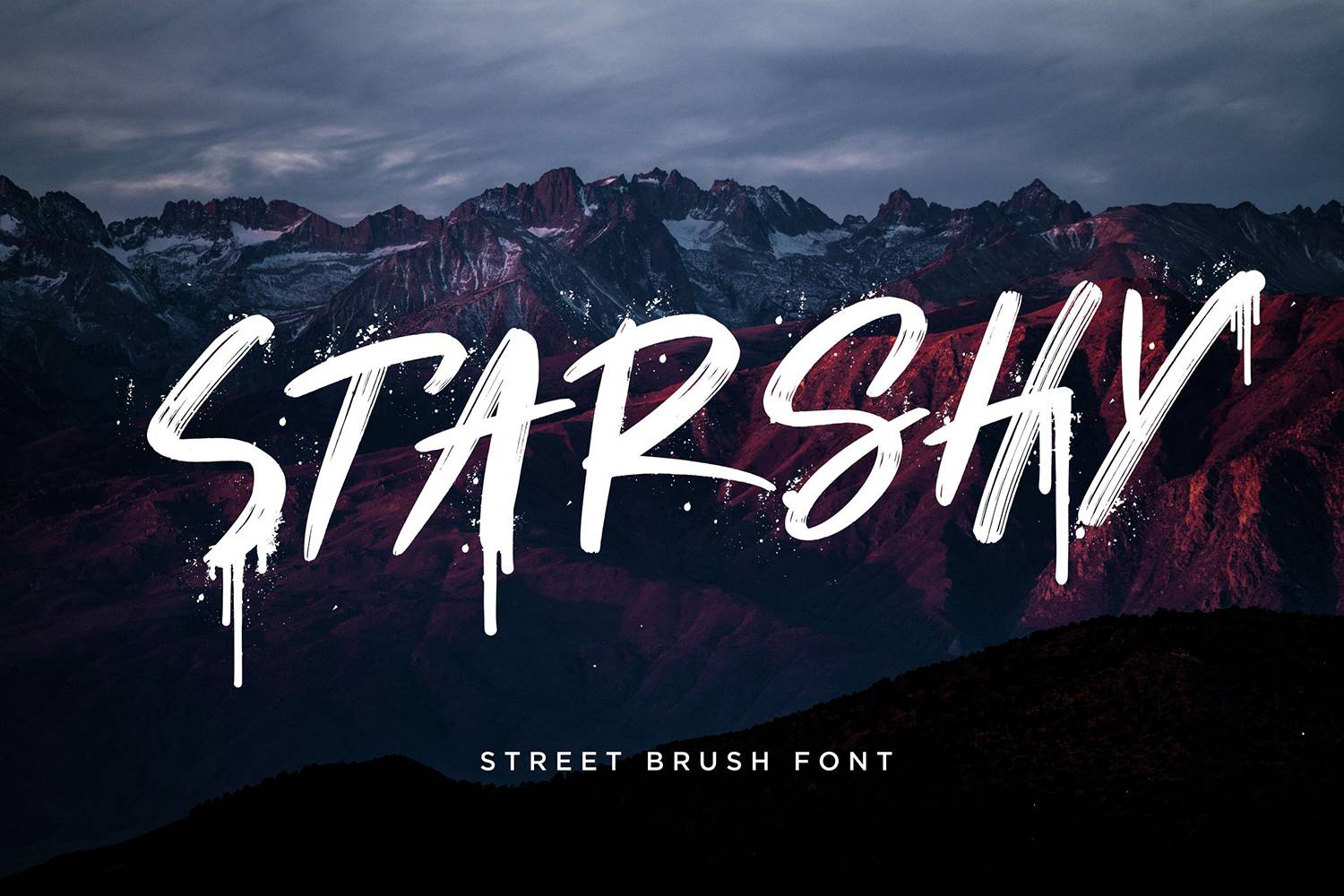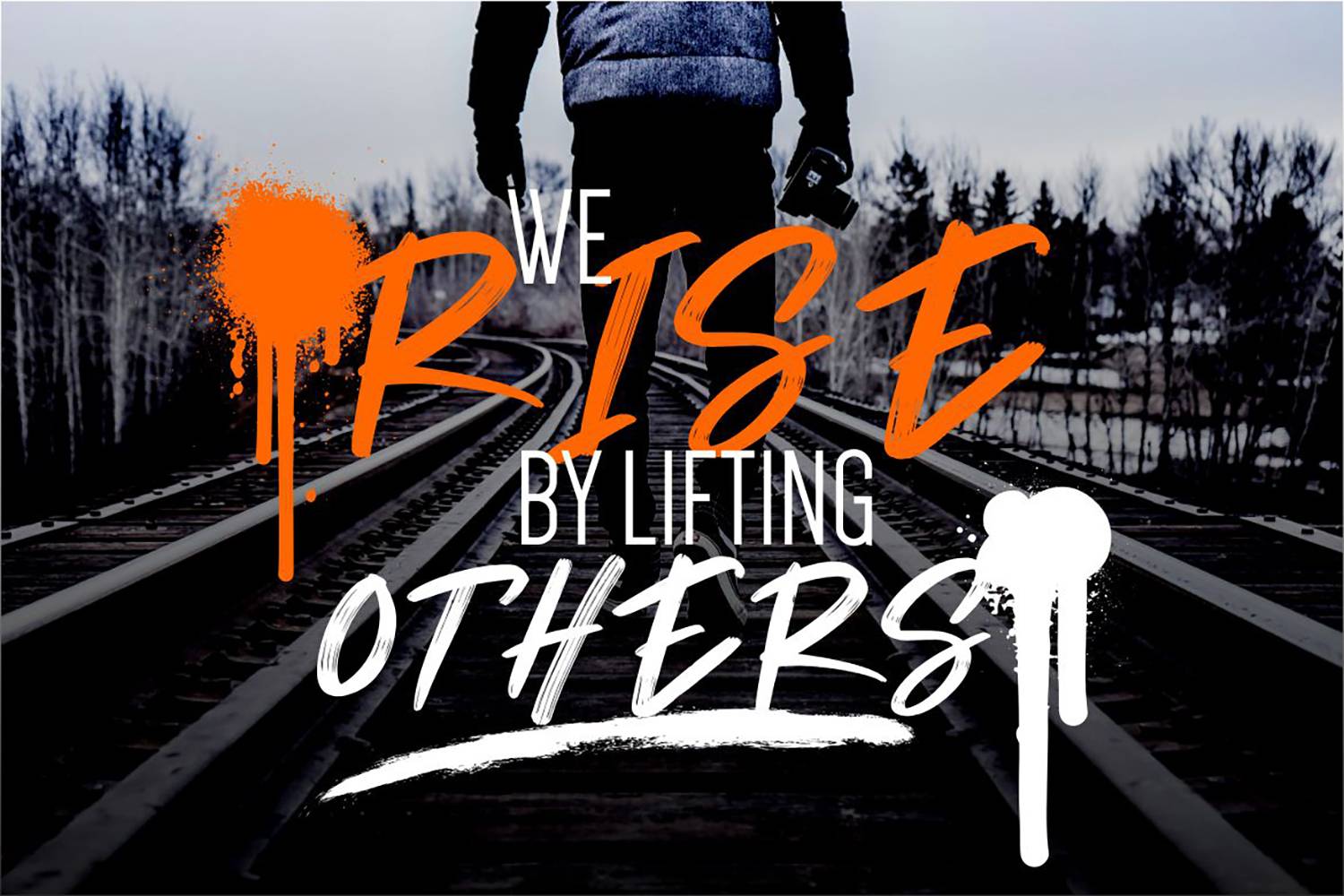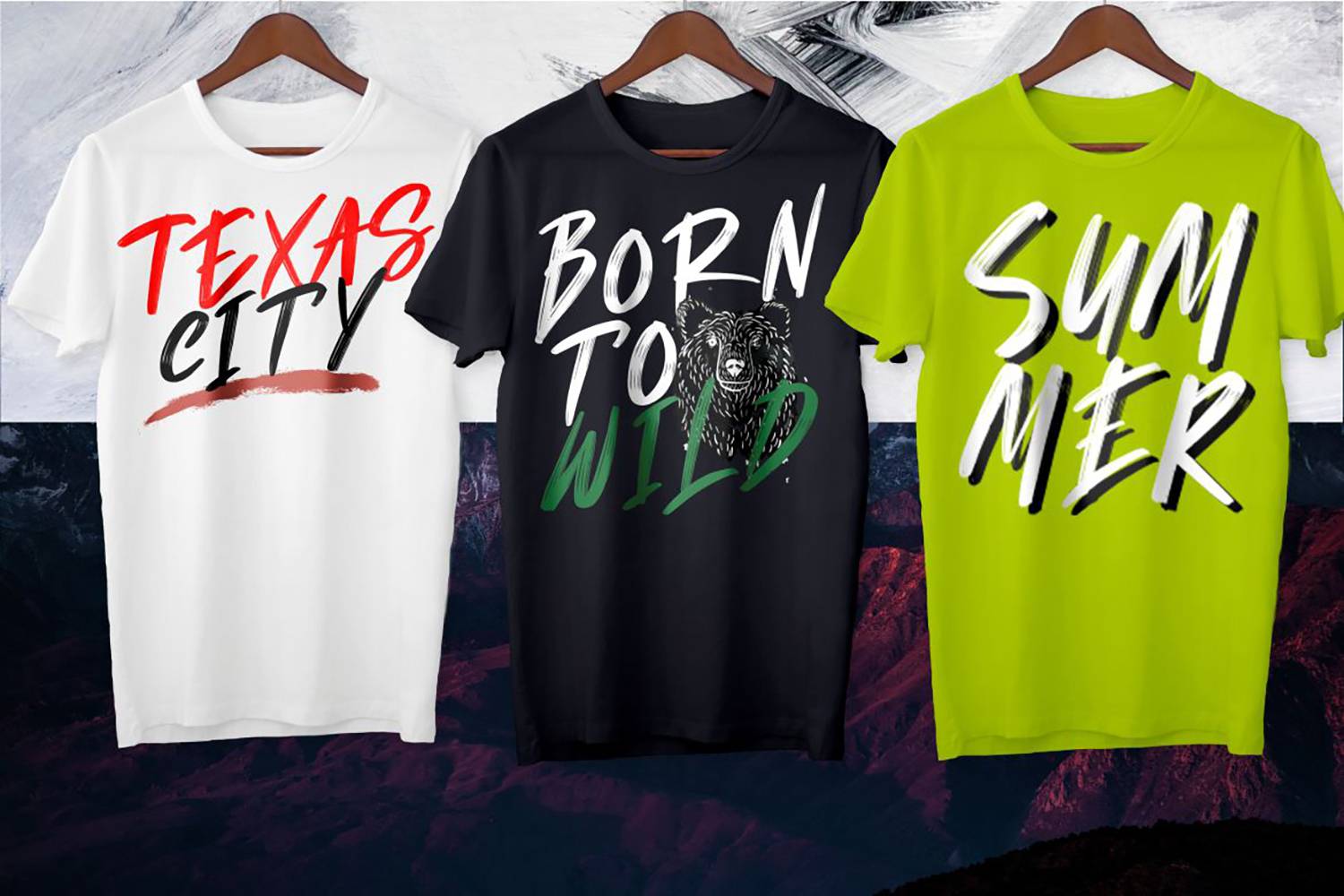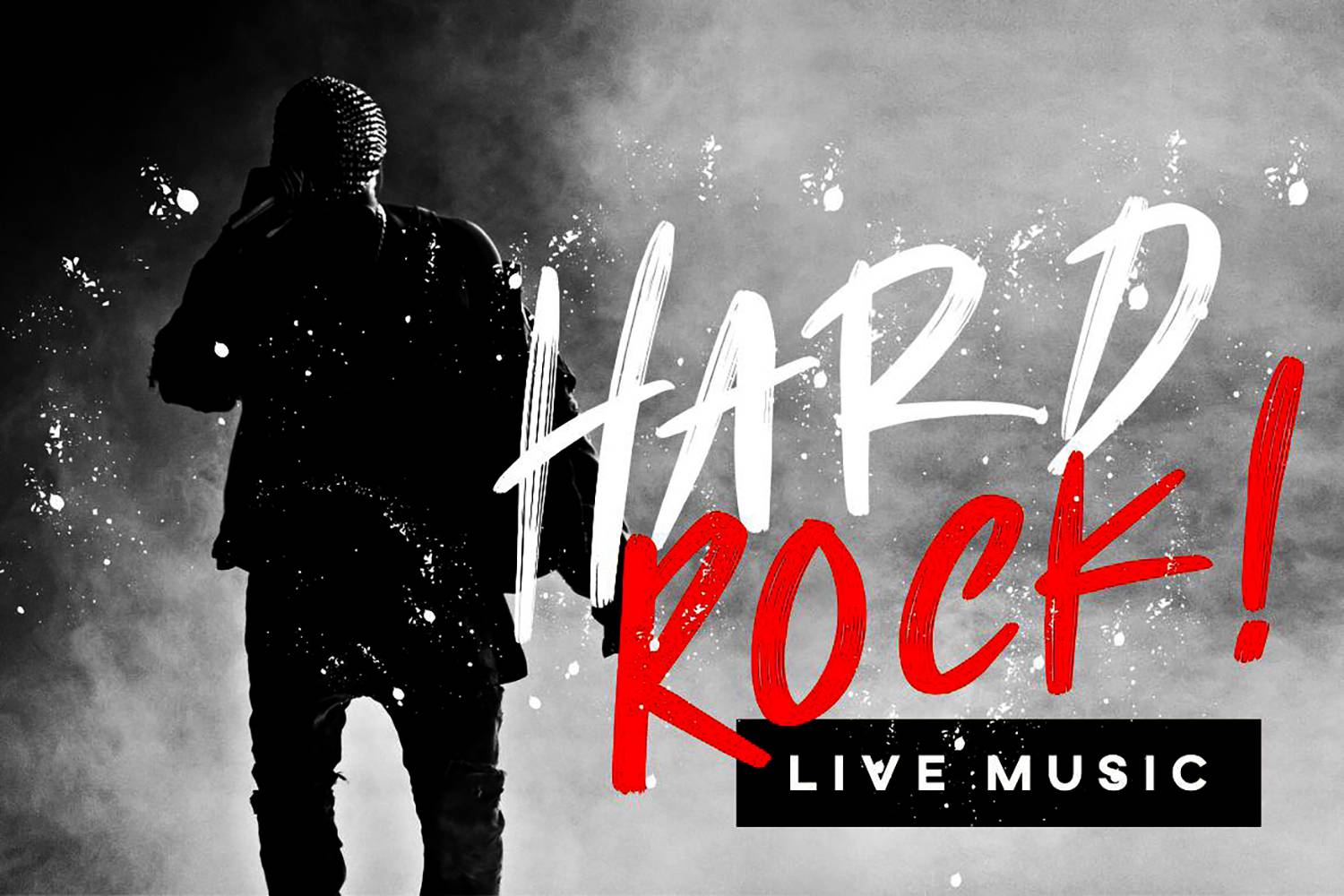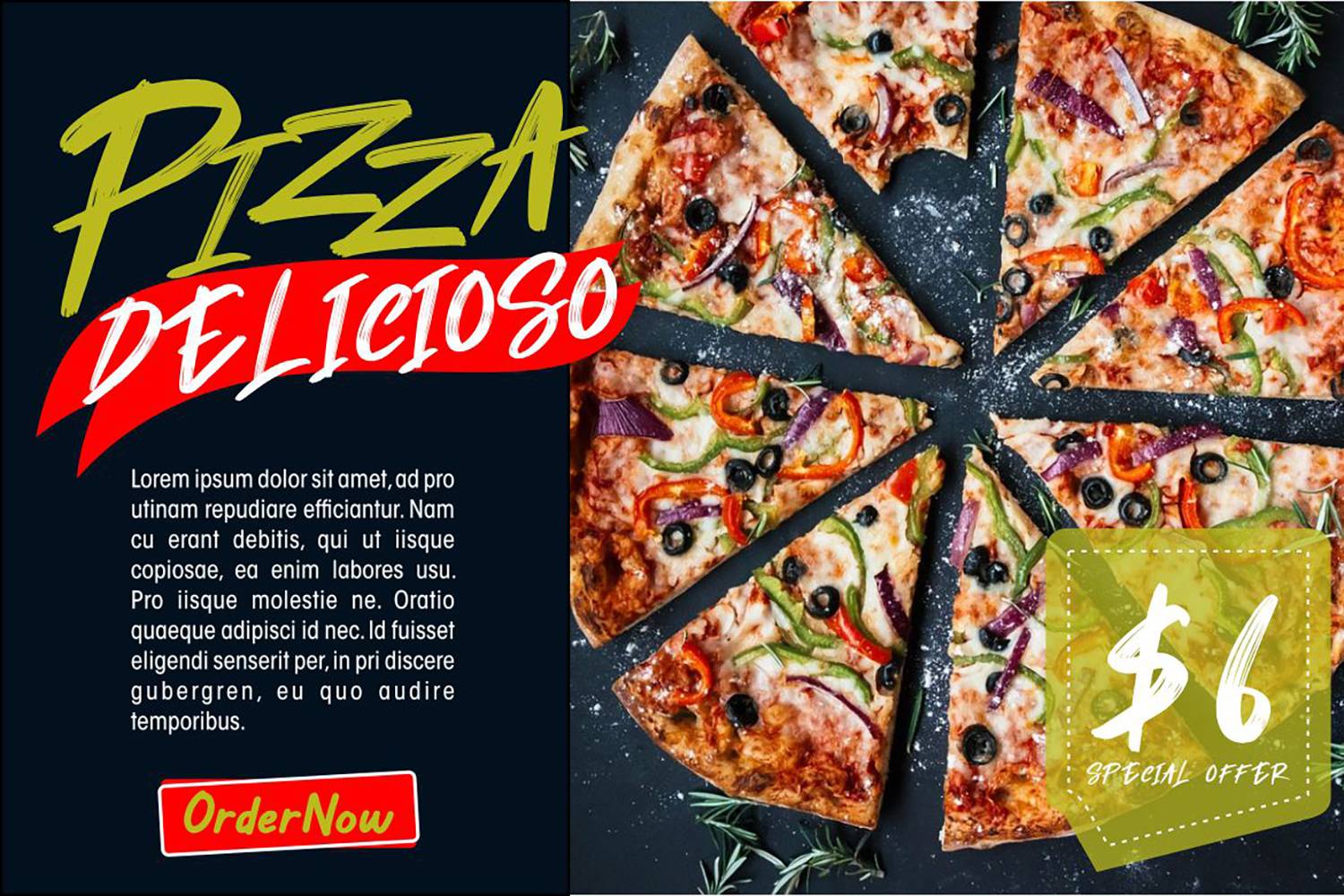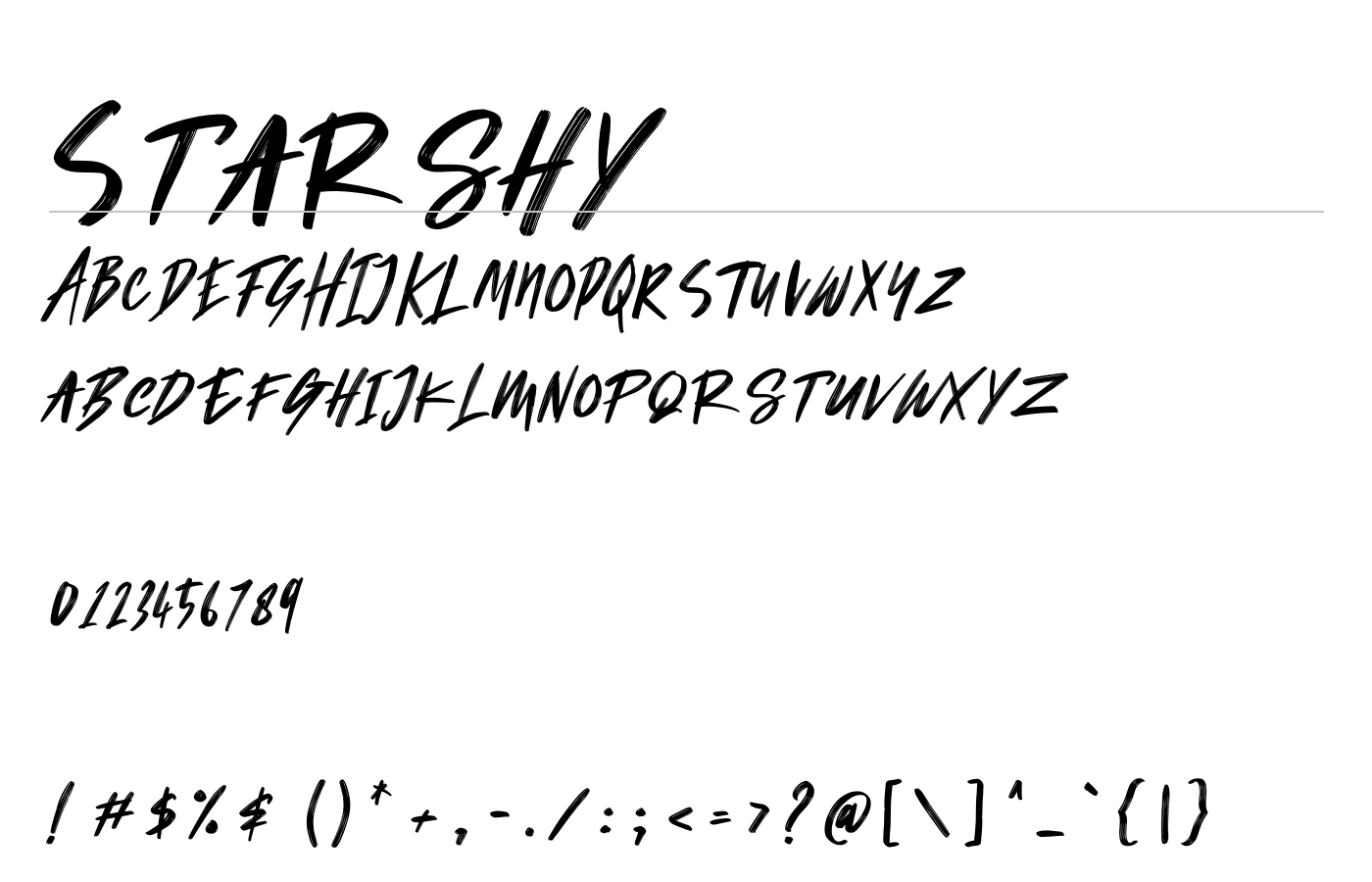
Starshy Street is a lively, handwritten script font with a strong casual and urban vibe. Its brush-like strokes and energetic, slightly irregular characters bring a dynamic, personal touch that works beautifully for creative branding, headlines, and expressive design projects. This font is perfect for adding character and a bold, authentic feel to logos, posters, and social media graphics.
Starshy Street Font
About Starshy Street Font